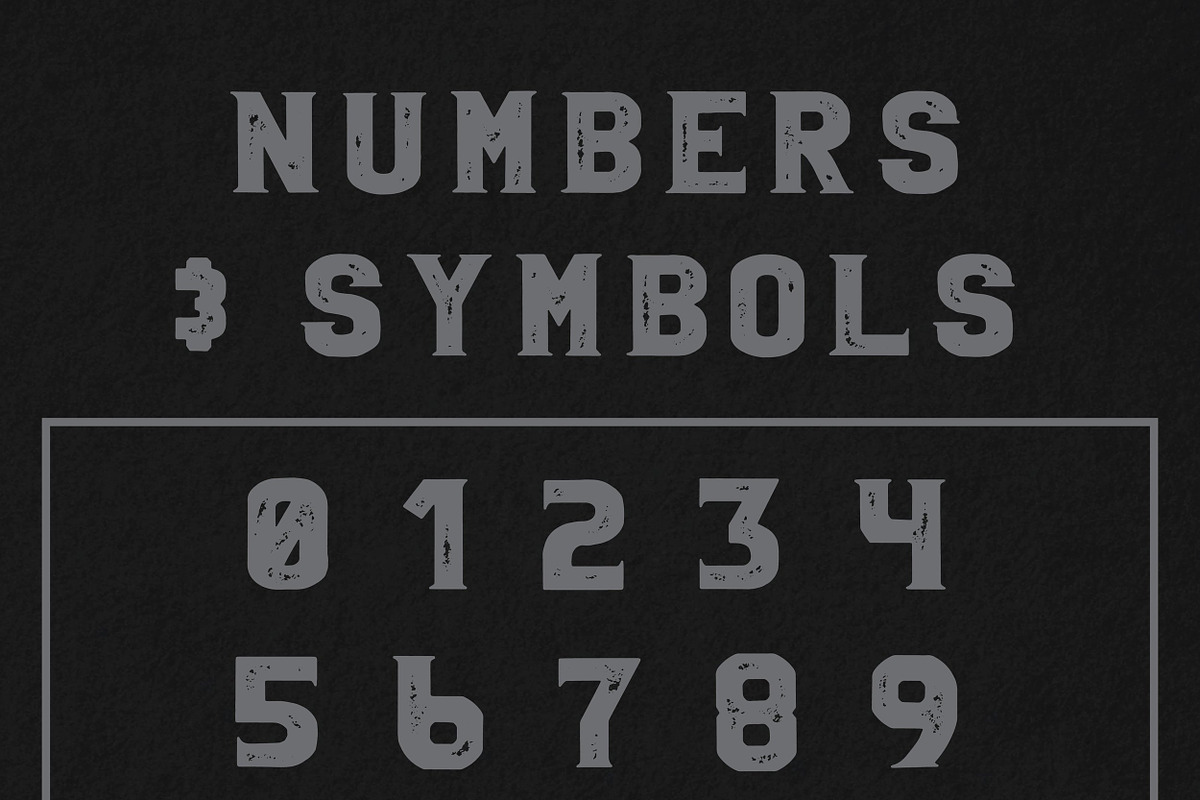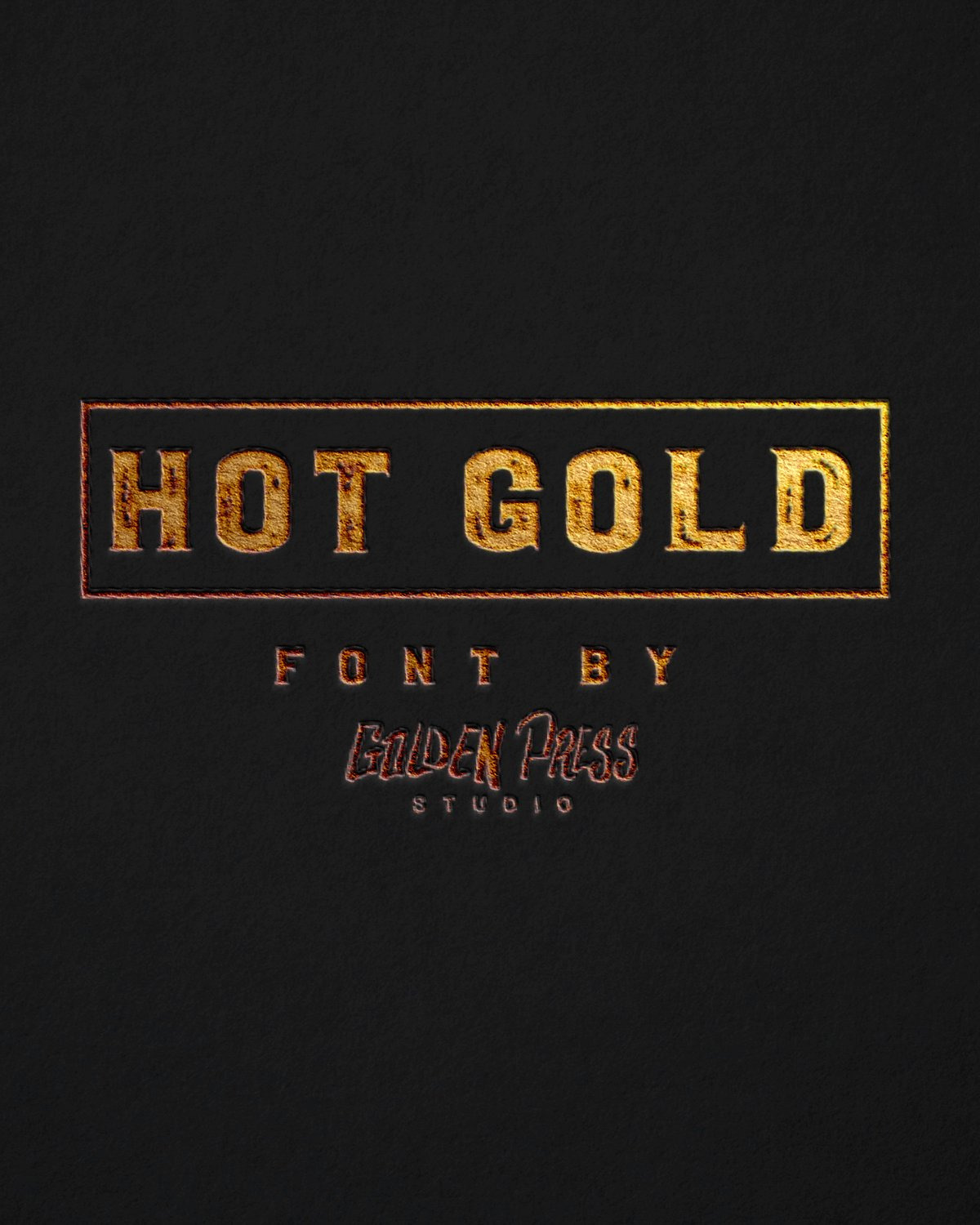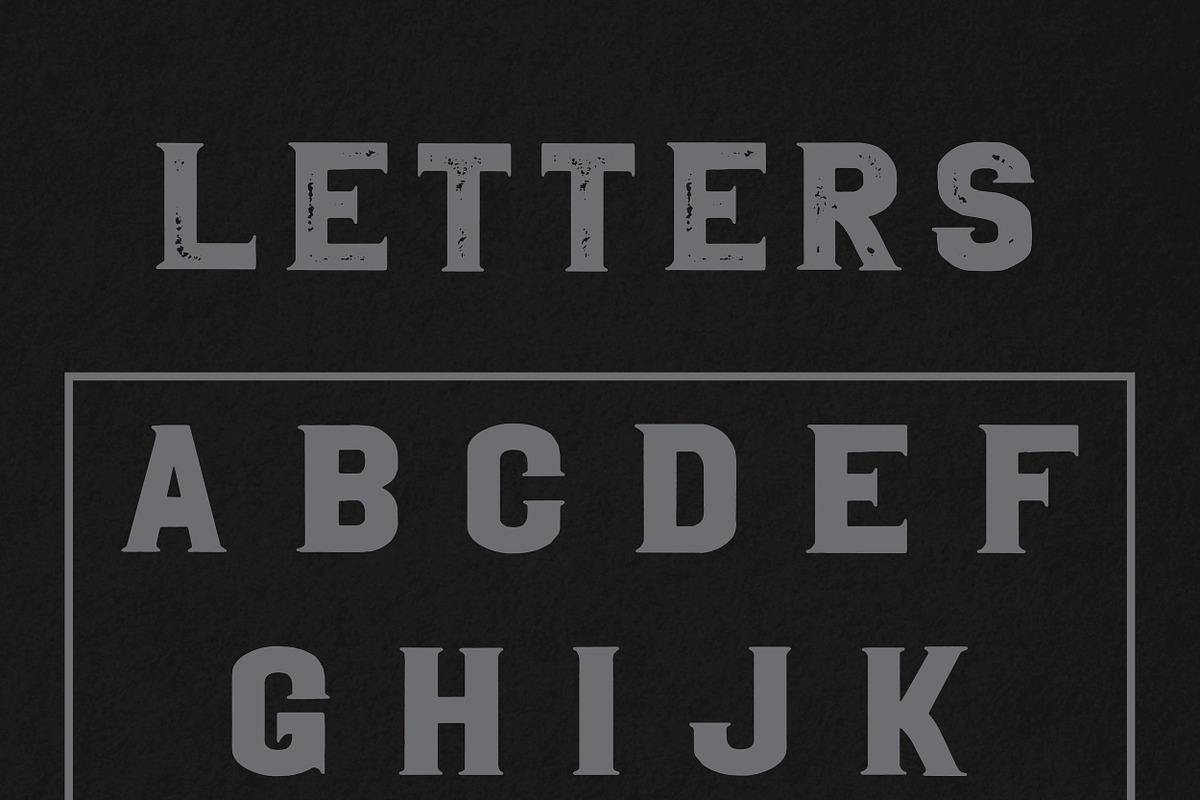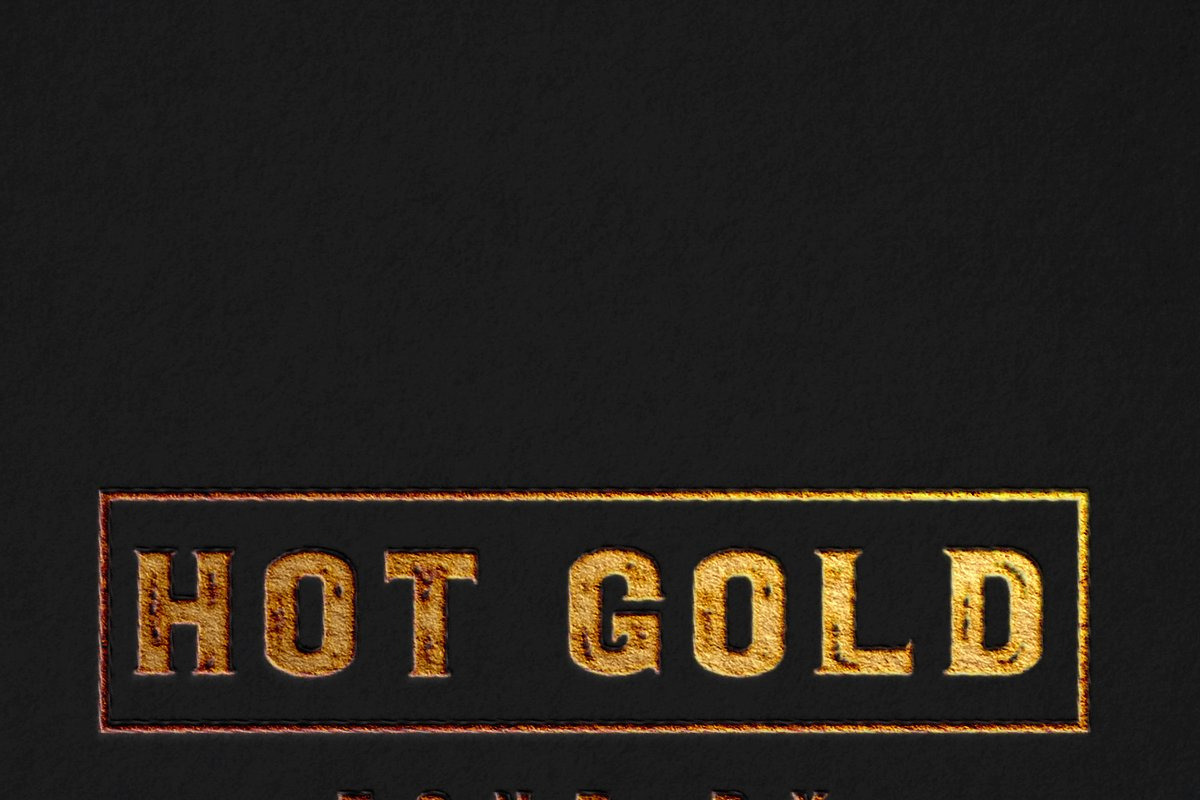
Hot Gold Font
Hot gold is a bold seriffed font offered in 3 different styles. Outlined, textured, and solid. This font is hand drawn by our designer Cory Romeiser.